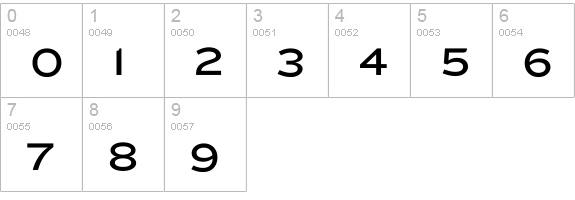
Knockout-HTF34-JuniorSumo font is a bold and powerful typeface that exudes strength and confidence. With its unique and eye-catching design, this font is perfect for making a statement in any project. Whether you're creating a poster, logo, or heading, Knockout-HTF34-JuniorSumo font is sure to grab attention and leave a lasting impression. Its thick and bold letterforms create a sense of power and authority, making it ideal for projects that require a strong visual impact. One of the best things about Knockout-HTF34-JuniorSumo font is that it is freely available to download at FontsMarket.com. This means that you can easily access and use this font in your designs without any hassle or cost. FontsMarket.com is a trusted source for high-quality fonts, and they offer a wide range of options to suit every design need. With Knockout-HTF34-JuniorSumo font, you can take your designs to the next level and stand out from the crowd. Its bold and commanding presence will make your message impossible to ignore. So why wait? Download Knockout-HTF34-JuniorSumo font today and unleash the power of typography in your projects.